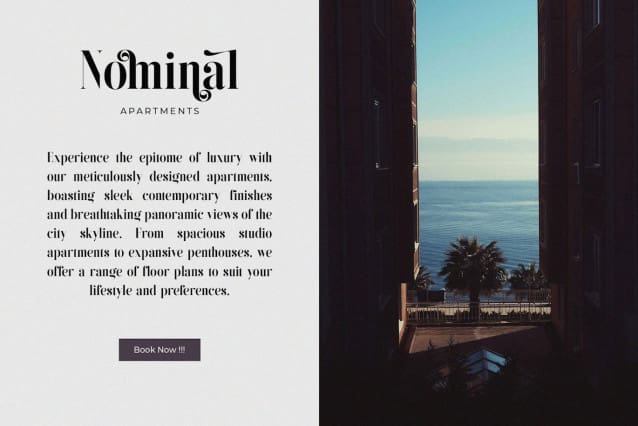
Demista Font
Demista Font, a modern serif font with an elegant style, perfect for branding, logos, invitations, magazines, product packaging and more.